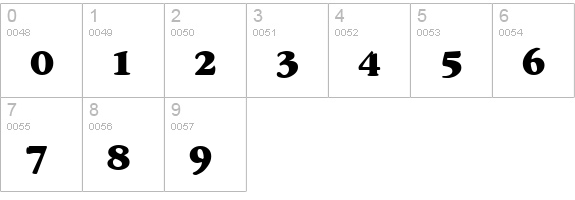
Gerona Font Details
Gerona font is a modern and elegant typeface that exudes sophistication and style. With its clean lines and subtle curves, Gerona is perfect for a wide range of design projects, from branding to editorial design. This versatile font is easy to read yet still maintains a sense of uniqueness that sets it apart from the rest. What makes Gerona font even more appealing is the fact that it is free to download at FontsMarket.com. This means that you can access this beautiful font without any cost, making it a great choice for designers on a budget or anyone looking to add a touch of class to their projects without breaking the bank. So why wait? Download Gerona font today and elevate your designs with this stunning typeface.